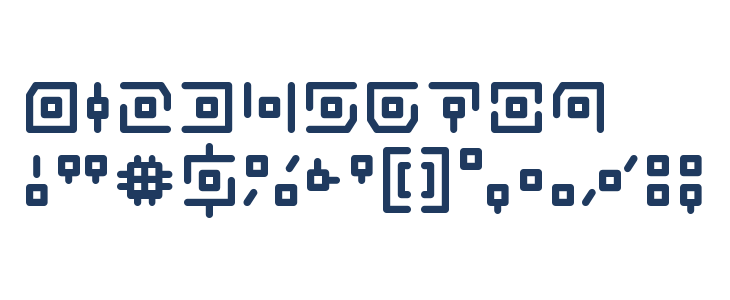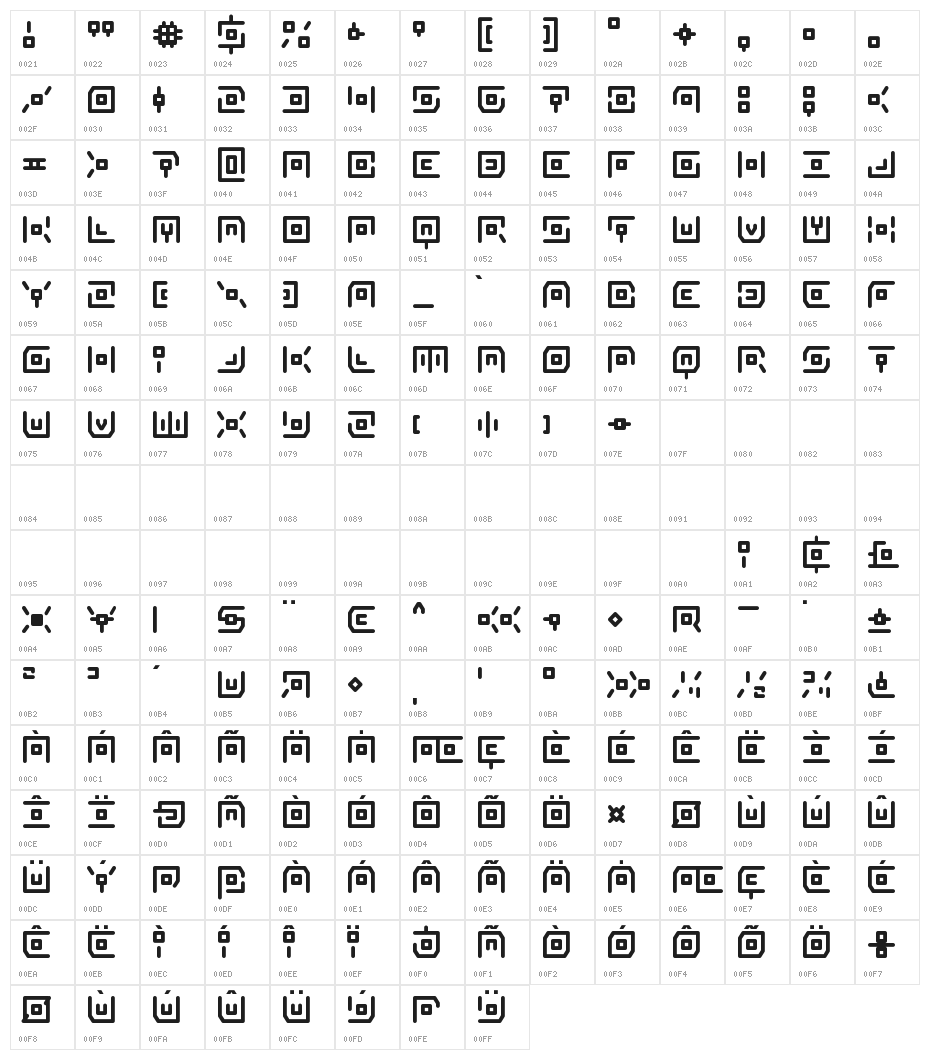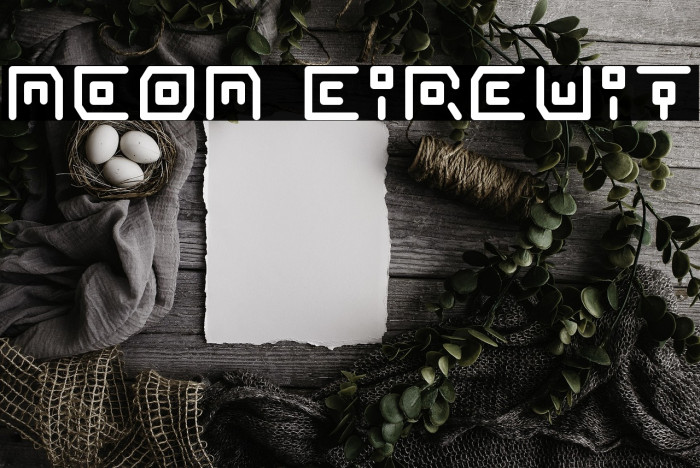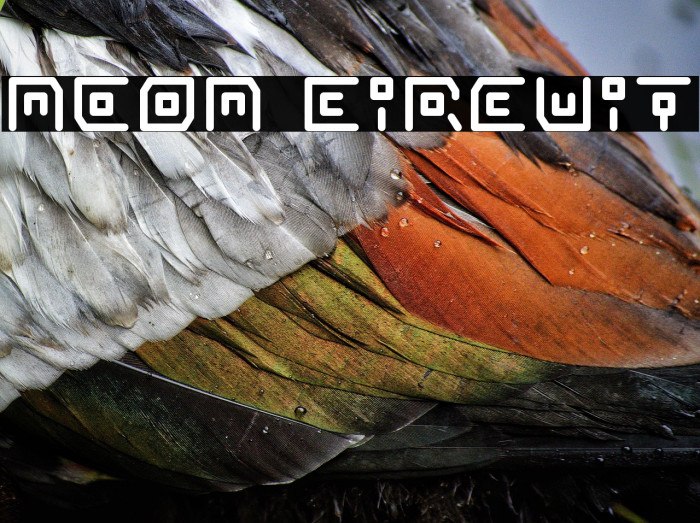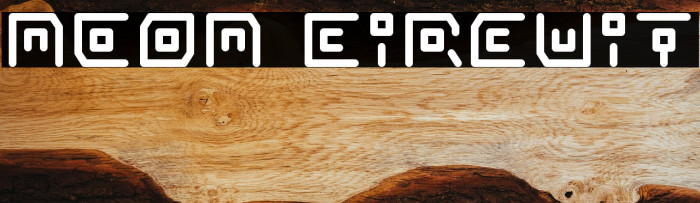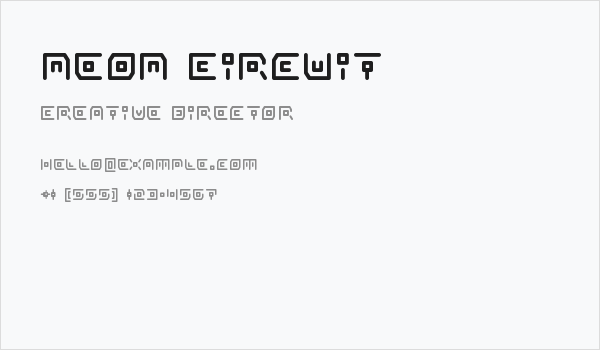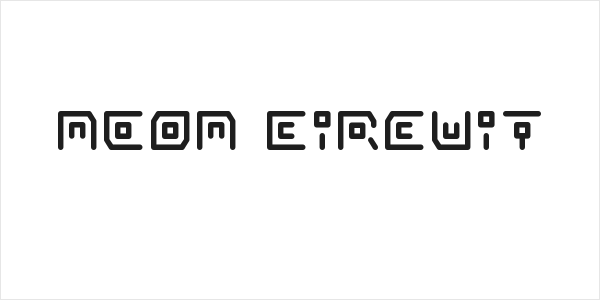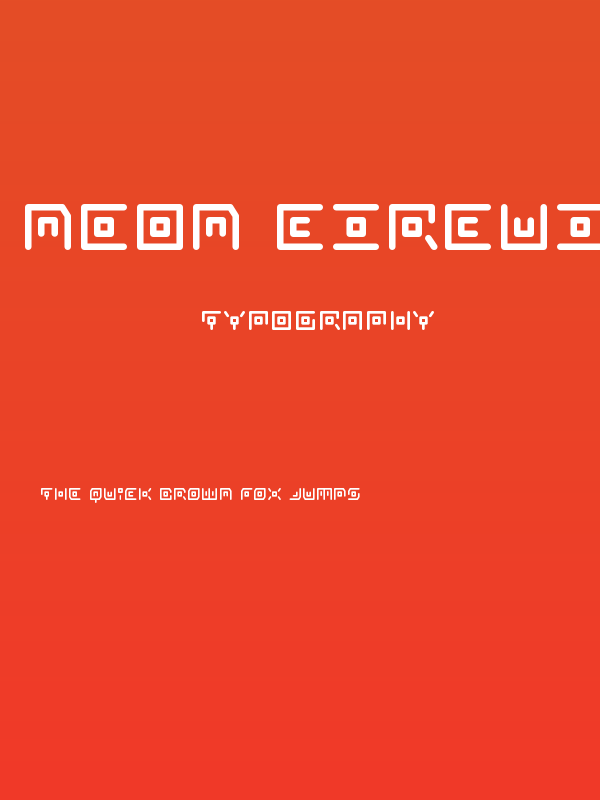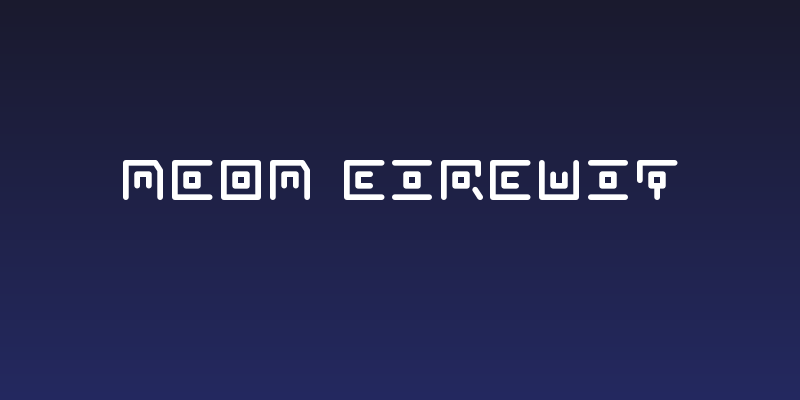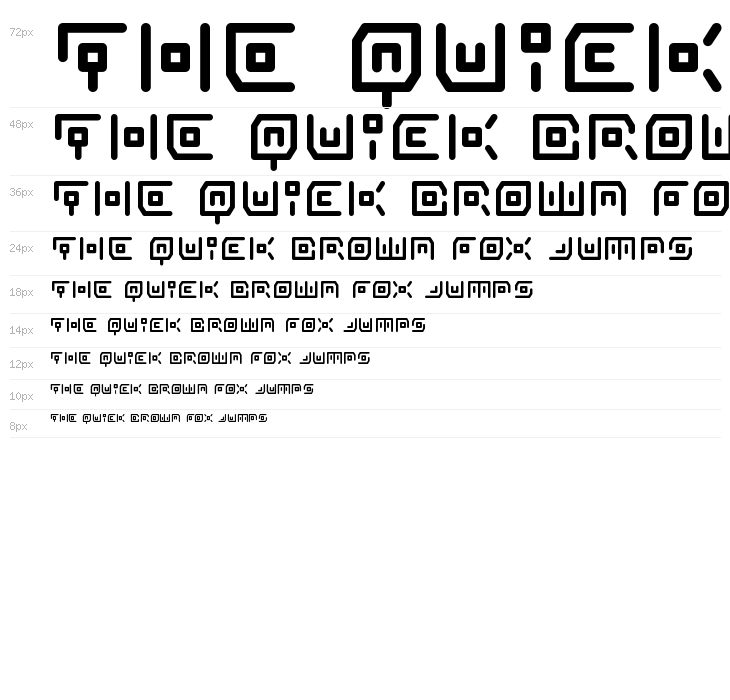
Neon Circuit Font
Neon Circuit Description
This font features a futuristic and digital aesthetic, reminiscent of neon lights and circuit board patterns. Each character is designed with a geometric and angular style, incorporating sharp corners and straight lines. The font has a consistent stroke width, giving it a uniform appearance. The characters are enclosed within square-like shapes, enhancing the digital and tech-inspired look. This design is ideal for projects that require a modern, sci-fi, or tech-oriented theme, capturing the essence of digital innovation and electronic circuits.
| Use Case | Logos, Headlines, Posters |
| Proposed Projects | Ideal for tech-themed posters, video game titles, sci-fi book covers, and digital art projects. |